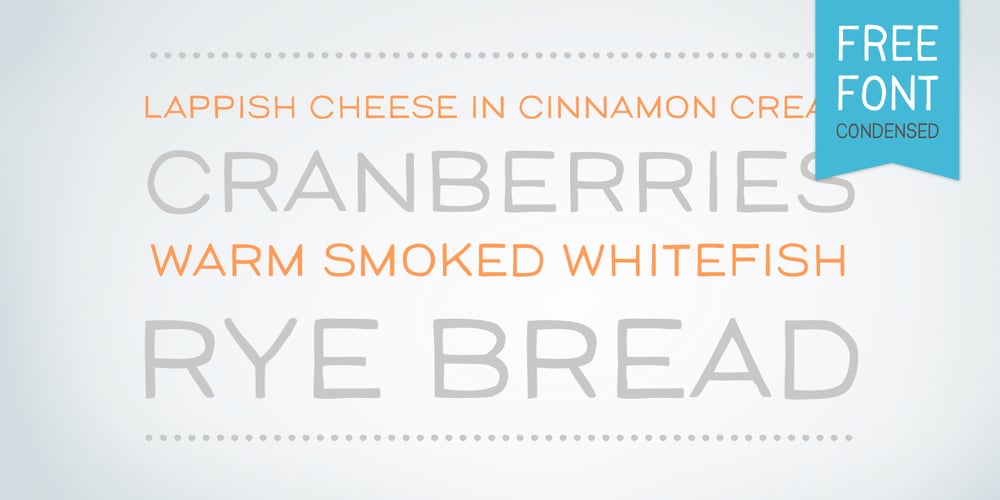
Savu
Savu font
Savu Font Family was designed by Ossi Gustafsson and published by Hiekka Graphics. Savu contains 4 styles and family package options. Savu is a hand-lettering font in four styles: regular, bold, condensed and condensed bold. It is recommended for use as a display typeface.